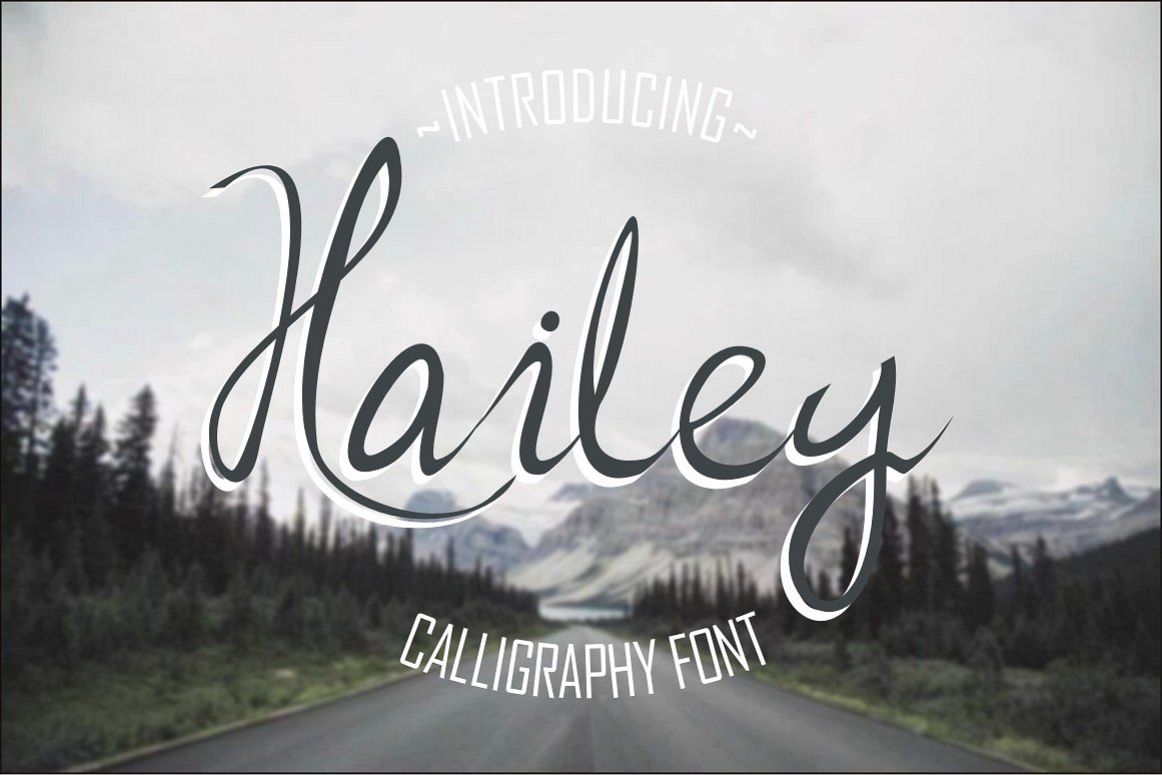
Hailey
Introducing the latest font with the modern hand scratches. Hailey is a stylish handwritten calligraphy font with a Trendy, feminine and natural model. This font can be used for various purposes. such as wedding invitations, birthday, gathering, logos, poster, signature, letterhead etc. . This font is suitable with the current market situation.